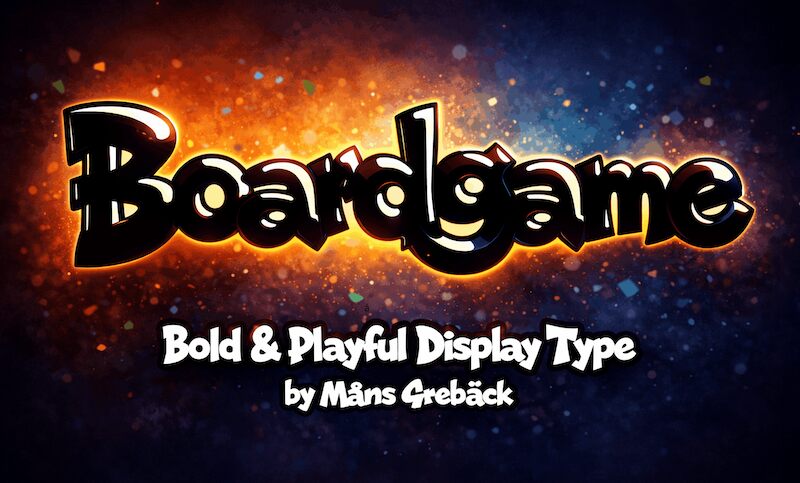
Boardgame font family by Måns Grebäck is an energetic and engaging written font inspired by the modern aesthetic. Comprising 2 font styles, Boardgame offers a modern look that adds impact to any project it touches. This free font family was made to serve as a dynamic tool for creatives who are looking for the next addition to their resources library.
This graffiti street style font is an ideal choice for a variety of contemporary applications in the entertainment and gaming industries. Use Boardgame to create outstanding advertisements, game titles and covers, movie titles, magazine covers, and lots more.
Boardgame is a bold and playful comic typeface that features a strong, friendly presence and a clear sense of fun.
The letterforms are chunky and optimistic, with an exaggerated weight that makes every word feel lively and approachable.